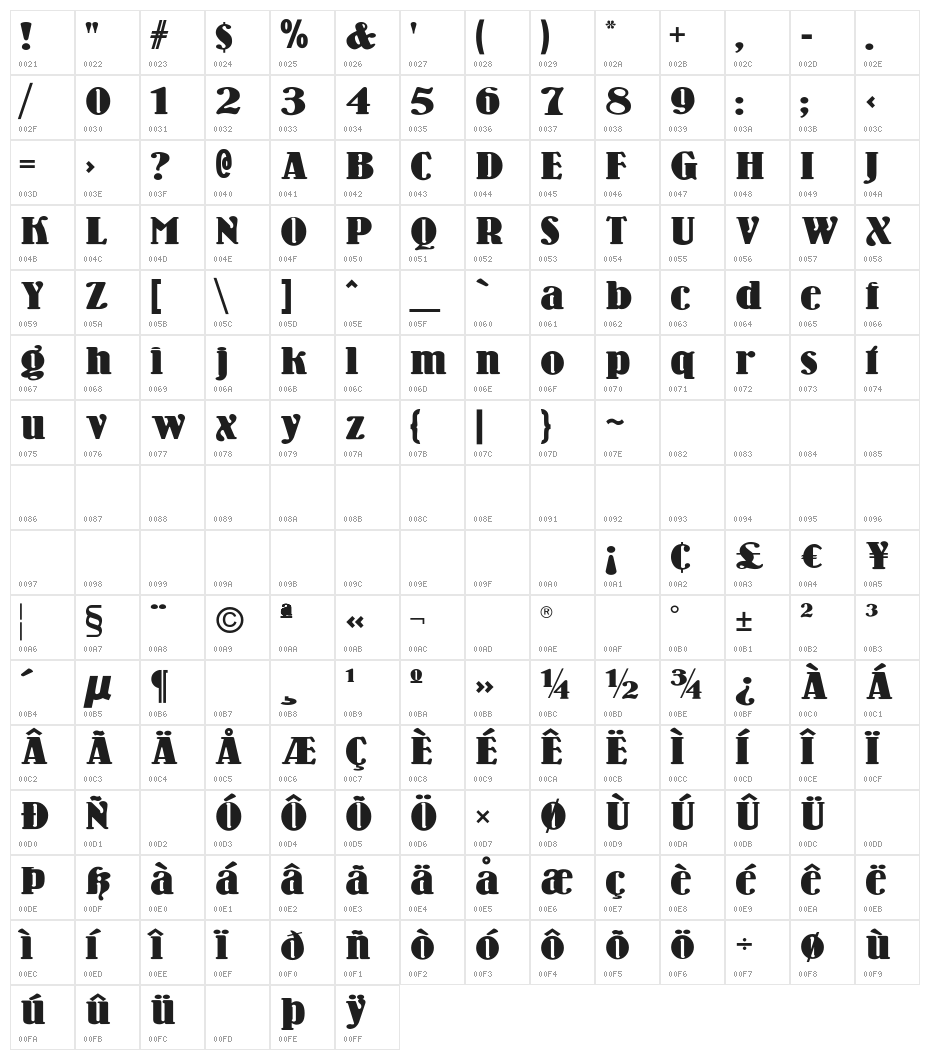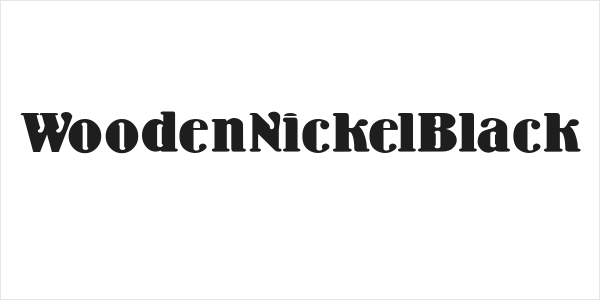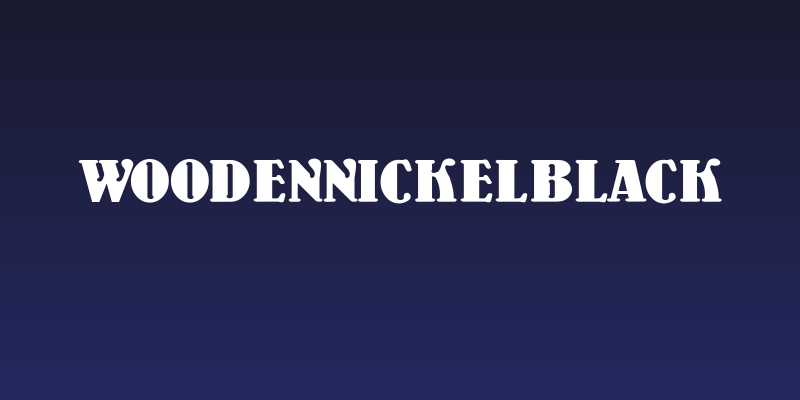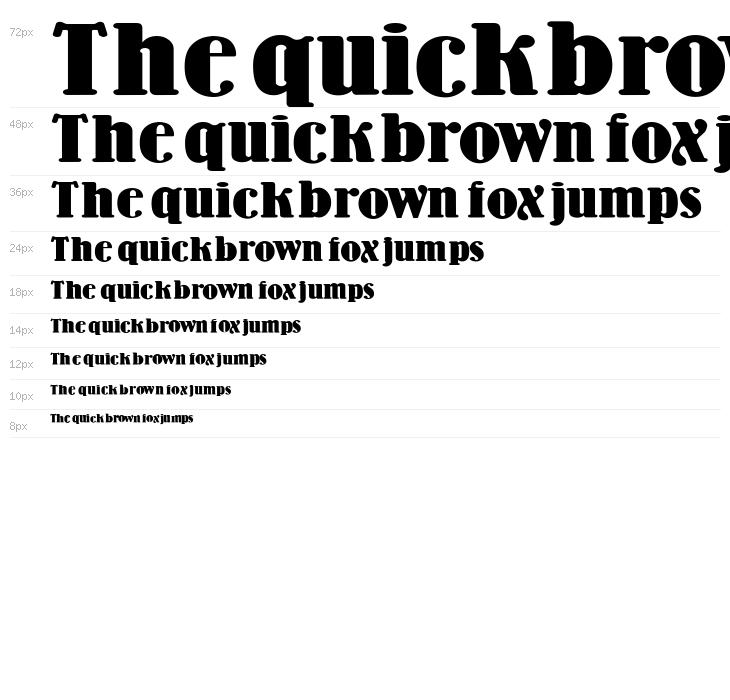
WoodenNickelBlack Font
WoodenNickelBlack Description
This font features a bold and striking design with thick, blocky serifs that give it a strong presence. The uppercase letters are robust and commanding, while the lowercase letters maintain a consistent weight, ensuring readability. The numerals are equally bold, making them stand out prominently. Special characters are crafted with the same attention to detail, adding to the font's versatility. The overall style is reminiscent of vintage woodblock printing, offering a nostalgic yet powerful aesthetic. Its boldness and unique character make it suitable for projects that require a strong visual impact.
| Proposed Projects | Ideal for posters, headlines, branding, and any design requiring a vintage or impactful look. |